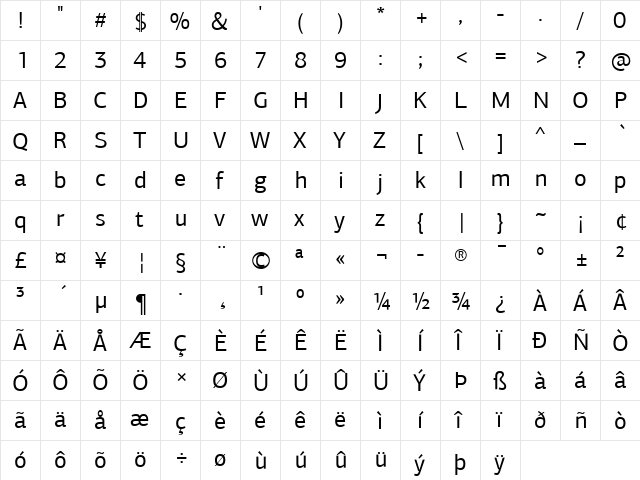
PF Agora Sans Pro Regular
| Foundry | Parachute蠗orldwide |
| Designer | Panos Vassiliou |
Design Context for PF Agora Sans Pro Typeface
PF Agora Sans Pro is a composed and adaptable typeface that performs quietly and consistently across a wide range of design contexts.